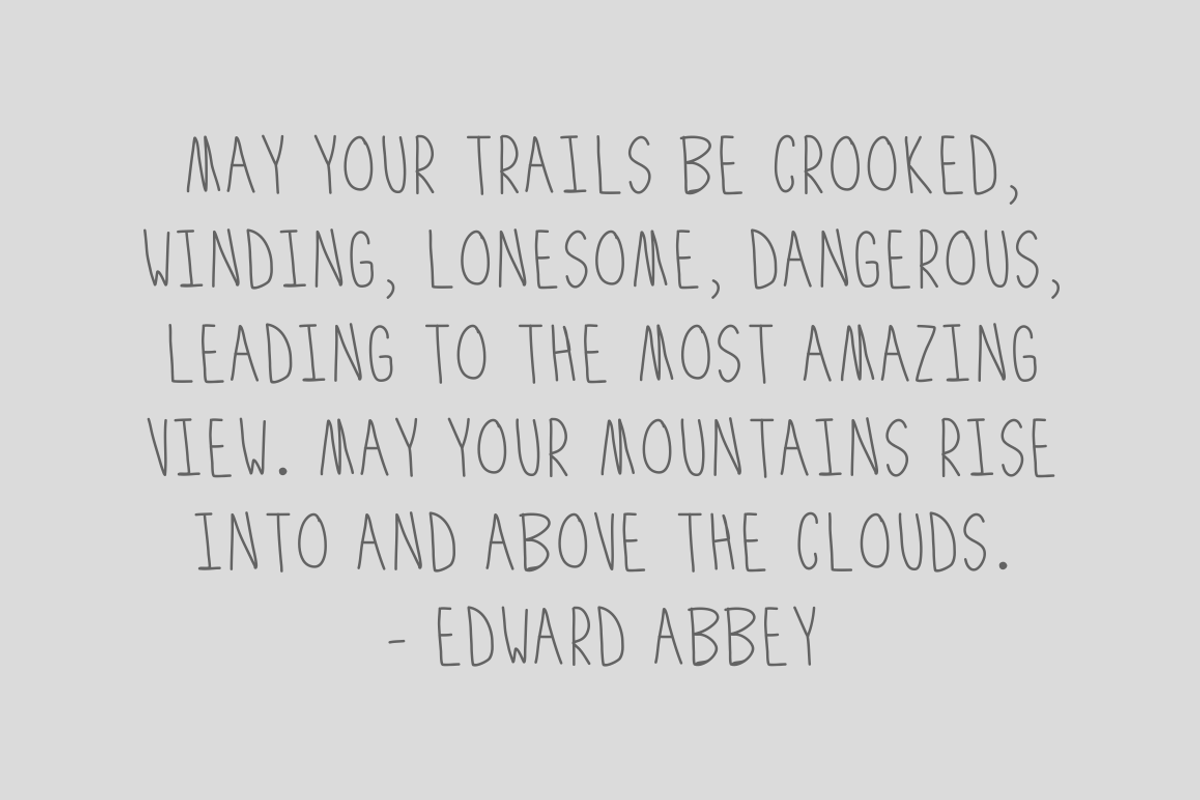
Elevation Font
Elevation Font by Jacob deCastro is a font selected for branding, posters, packaging, typography.
Why Elevation Font is worth a look
Elevation Font by Jacob deCastro fits naturally into Branding, posters, packaging, typography.